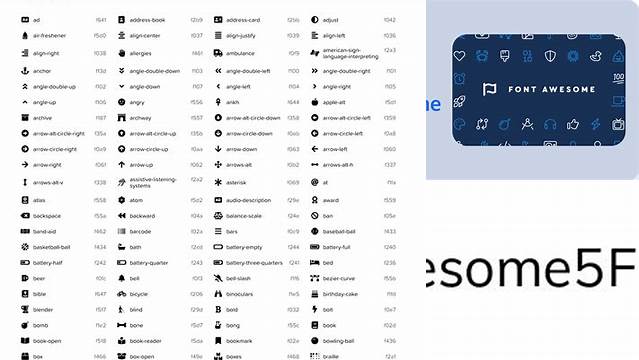
Font Awesome Free 5: A Comprehensive Guide
What is Font Awesome Free 5?
Font Awesome Free 5, guys, is like a treasure chest of icons that you can use on your website! Think of it as a huge library filled with little images that represent different things – everything from social media logos to arrows, buttons, and even symbols for different types of files. The best part? It's totally free to use! This means you don't have to pay a dime to access a ton of cool icons that can make your website look way more professional and engaging. Font Awesome Free 5 uses web fonts to display these icons, so they're super scalable, meaning they'll look great on any screen size, whether it's a tiny phone or a massive desktop monitor. Plus, because they're fonts, you can easily change their size, color, and even add shadows with just a little bit of CSS. It's a fantastic tool for any web developer looking to add some visual flair to their projects without breaking the bank.
Benefits of Using Font Awesome Free 5
So, why should you even bother with Font Awesome Free 5? Well, for starters, it's a massive time-saver. Instead of hunting down individual images for every little icon you need, you can just grab one from the Font Awesome library. This means you can focus on the more important aspects of your website, like content and functionality. Also, using a consistent set of icons like Font Awesome gives your website a more polished and professional look. It helps create a visual language that your visitors can easily understand, making your site more user-friendly. And let's not forget about performance! Because Font Awesome uses web fonts, the icons load super quickly, which can help improve your website's loading speed and overall user experience. Who doesn't want a faster, better-looking website, right?
How to Use Font Awesome Icons
Alright, now that you've got Font Awesome Free 5 installed, it's time to actually use those icons! The way it works is pretty simple. Each icon has a specific class name that you use in your HTML code. For example, if you want to display a home icon, you would use the class name fa-home. To add the icon to your page, you use an <i> tag (which stands for italic, but in this case, it's used for icons) and give it the appropriate class names. So, the code would look something like this: <i class="fas fa-home"></i>. The fas class tells Font Awesome that you want to use a solid style icon. There are also other styles available, like far for regular icons and fab for brand icons (like social media logos). You can easily find the class names for all the different icons on the Font Awesome website. Just search for the icon you want, and the class name will be displayed right there. Then, just copy and paste the code into your HTML, and boom! You've got a cool icon on your page.
Basic Icon Usage
To use Font Awesome Free 5 icons, you'll primarily work with the <i> tag (or <span> tag) and assign specific classes to it. The basic structure for using an icon is as follows: